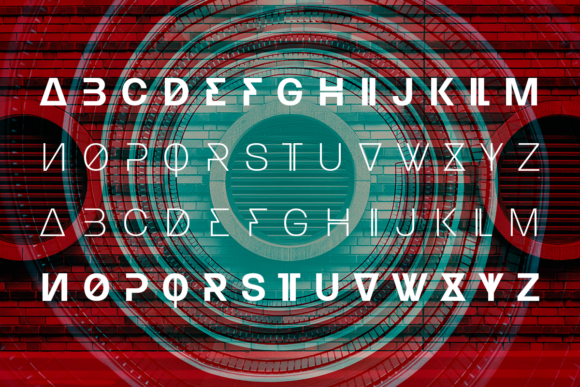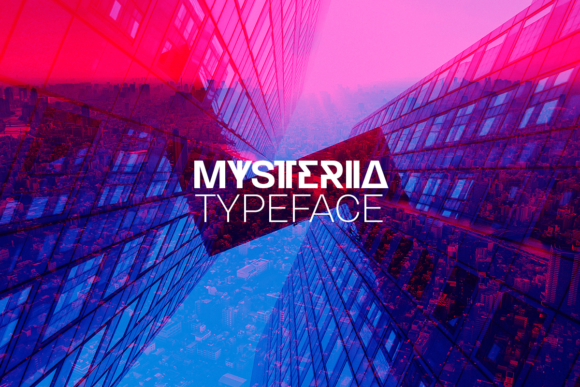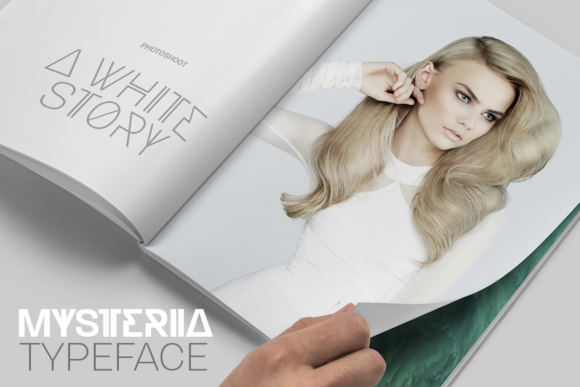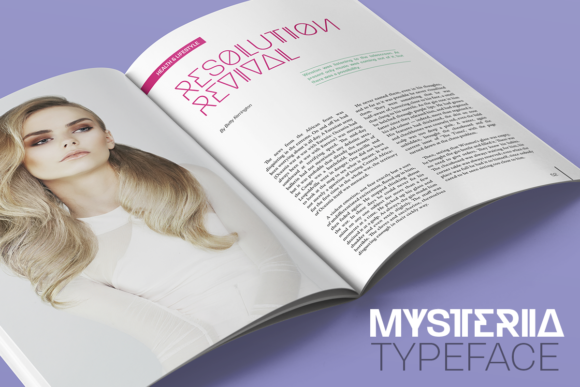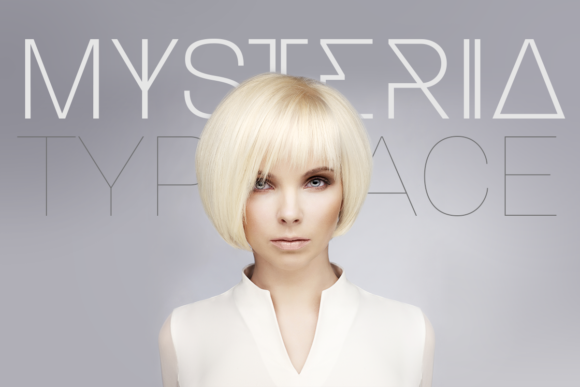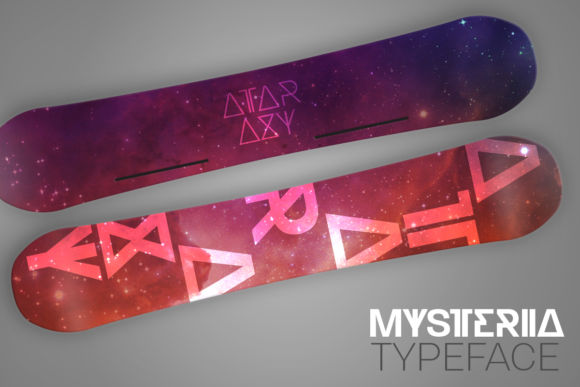
Mysteria
Mysteria: A Unique Novelty Font Family
Mysteria is a novelty font family designed by Juraj Chrastina. This typeface features two distinct styles, offering versatility in design. With its eccentric display face and the ability to pair with the matching body text family Gerlach Sans, Mysteria is designed to make your messages stand out and catch everyone’s eye.
Key Features of Mysteria
• Unique Design: Offers an eccentric and eye-catching look suitable for various applications.
• Two Weights: Provides flexibility in creating stunning messages.
• Versatile Application: Ideal for both display and body text when paired with Gerlach Sans.
• Attention-Grabbing: Designed to make your text stand out from the crowd.
Ideal Uses for Mysteria
Mysteria’s unique characteristics make it particularly well-suited for:
When incorporating Mysteria into your designs, consider these tips:
• Use for headlines or short blocks of text to showcase its eccentric style.
• Experiment with both weights to create visual hierarchy and interest.
• Consider pairing with Gerlach Sans for body text to maintain consistency.
• Utilize its unique design to create memorable and impactful messages.
Mysteria is an excellent choice for designers looking to add a truly unique and attention-grabbing font to their typographic toolkit. Its ability to stand out and create stunning messages makes it invaluable for projects that require a strong visual impact. Whether you’re working on branding, creating layouts for magazines, or developing content that needs to catch the eye, Mysteria offers the perfect blend of novelty and functionality.
Furthermore, Mysteria’s distinctive design allows it to shine in various contexts. From creative advertising campaigns to more artistic layouts that need a touch of the extraordinary, this font can elevate your projects. Its eccentric yet readable style works particularly well in designs that require a bold and memorable statement.
In conclusion, Mysteria is a font that truly captures the essence of creativity and impact in typography. Its ability to work well in both display and body text applications (when paired with Gerlach Sans) showcases its versatility. For those looking to add a touch of unique charm to their work, Mysteria can enhance themed creations with its distinctive style. It’s the perfect choice for designers seeking to make a strong, unforgettable impact across a wide range of creative projects.